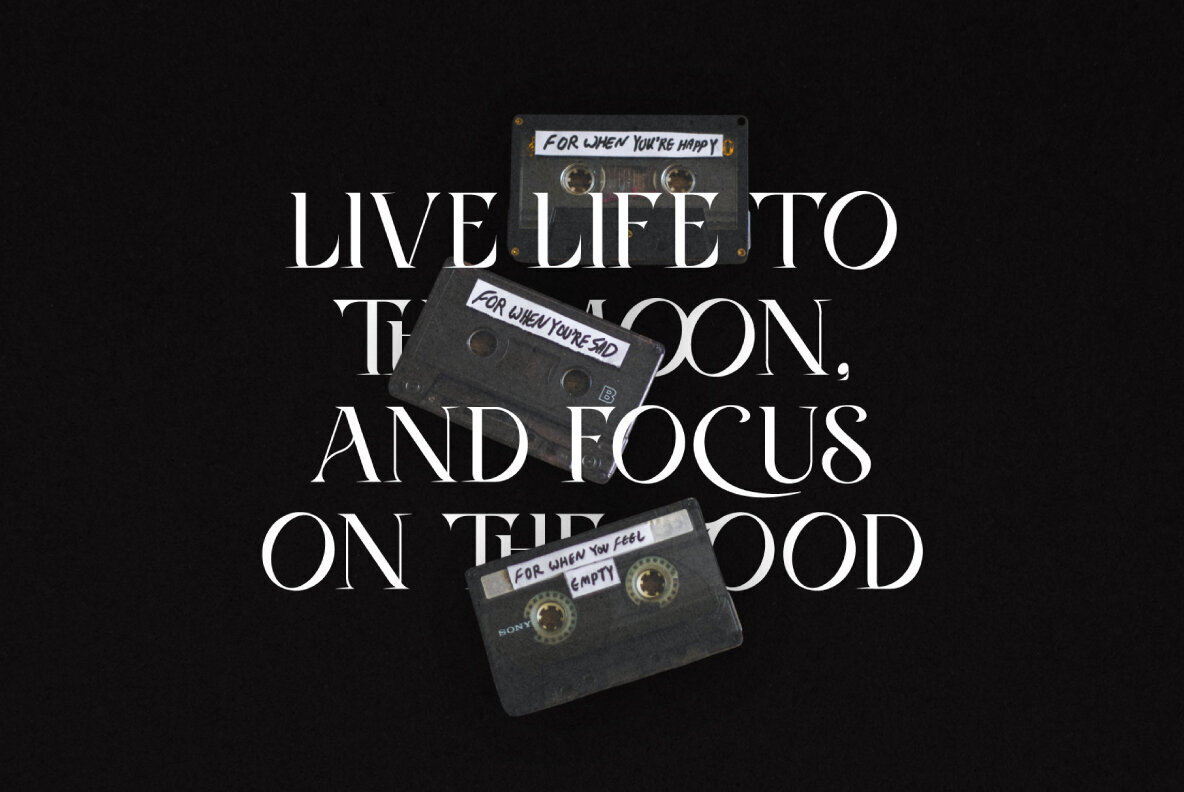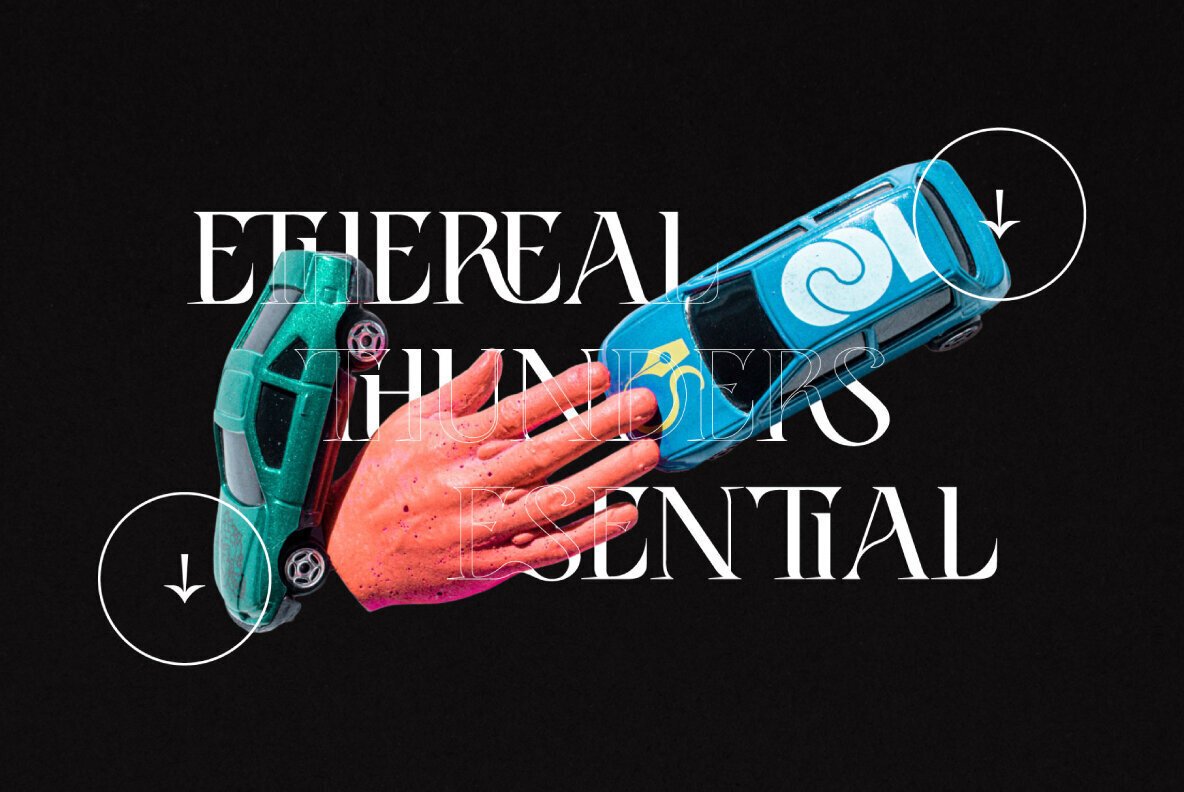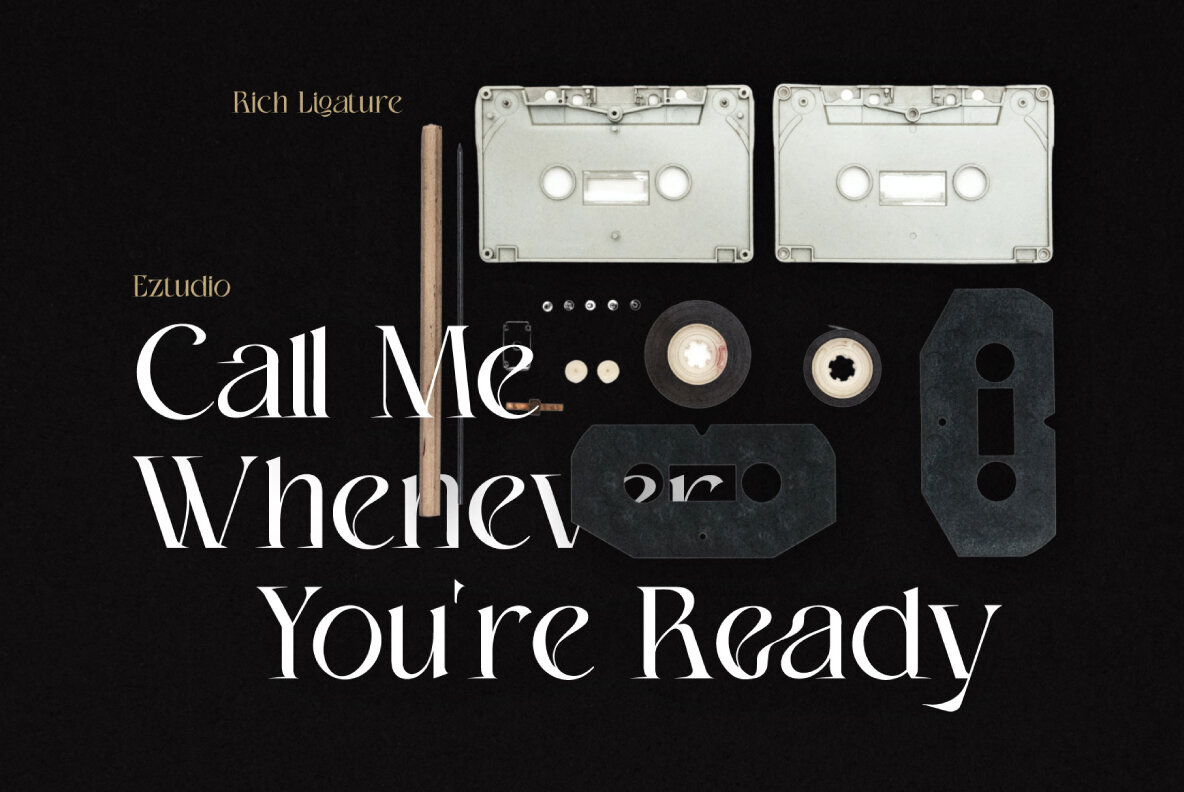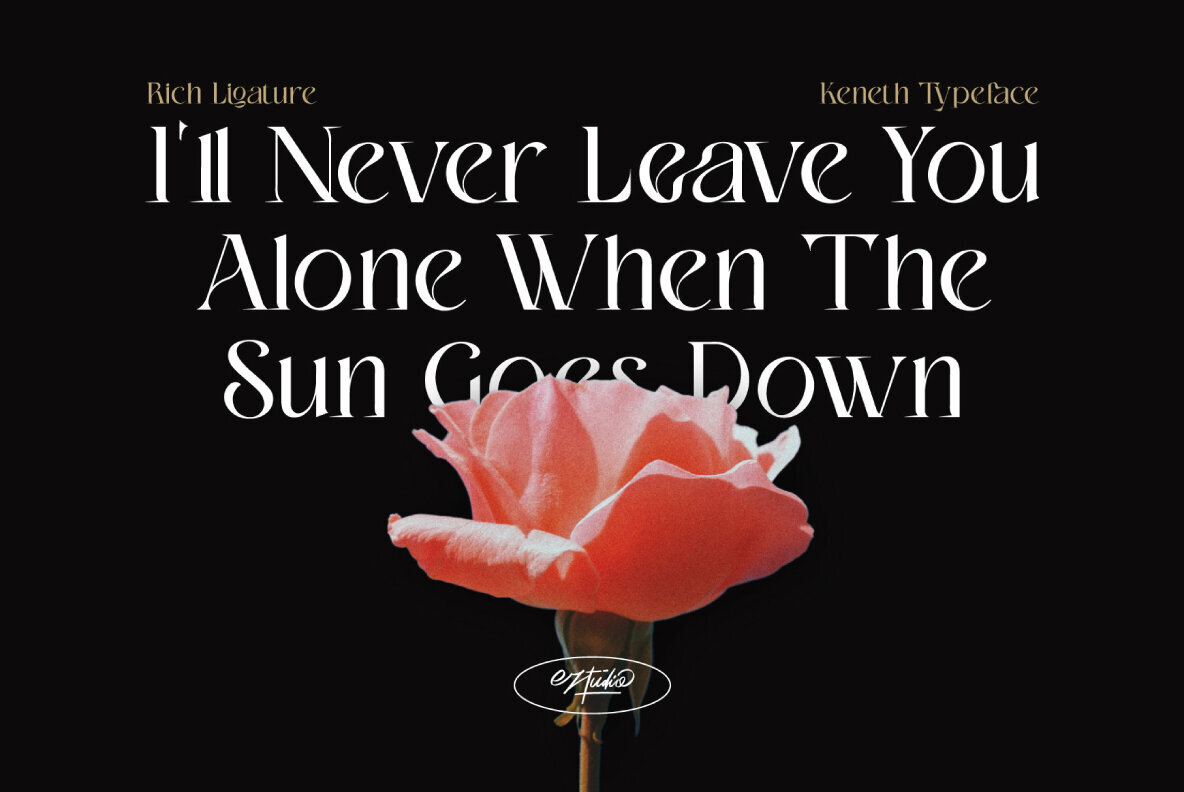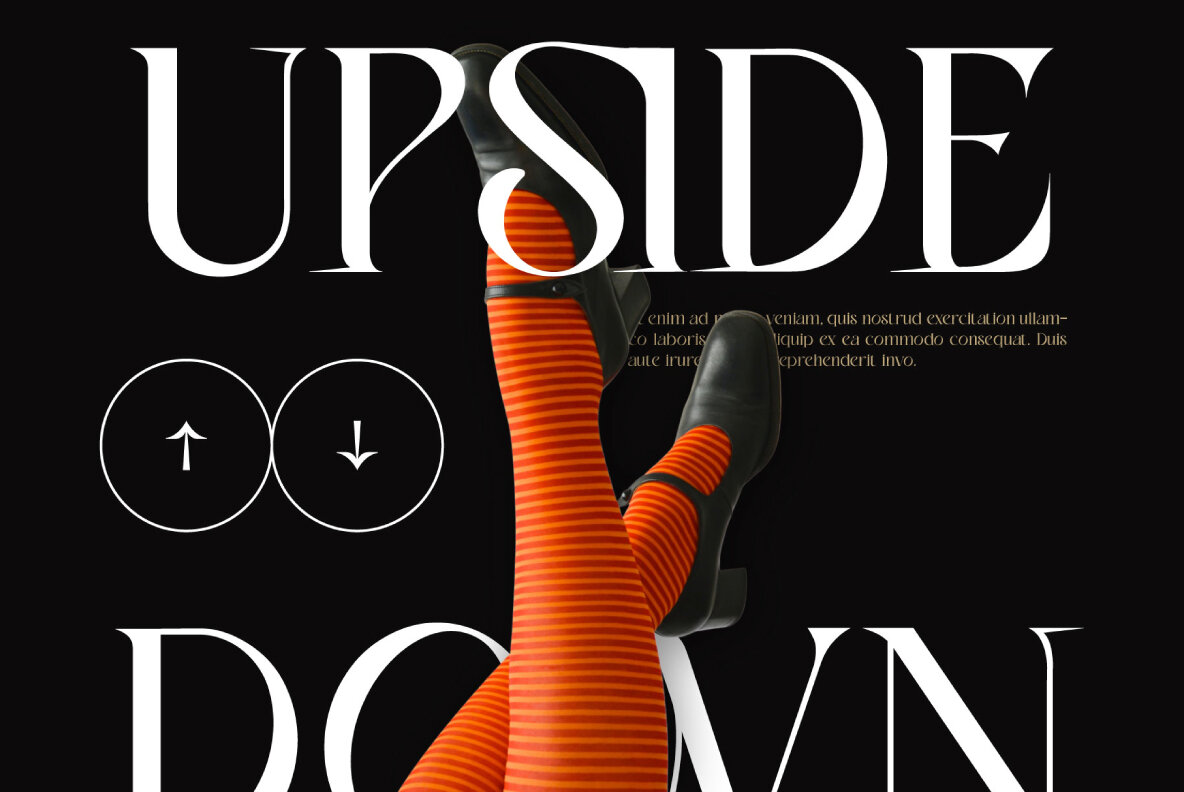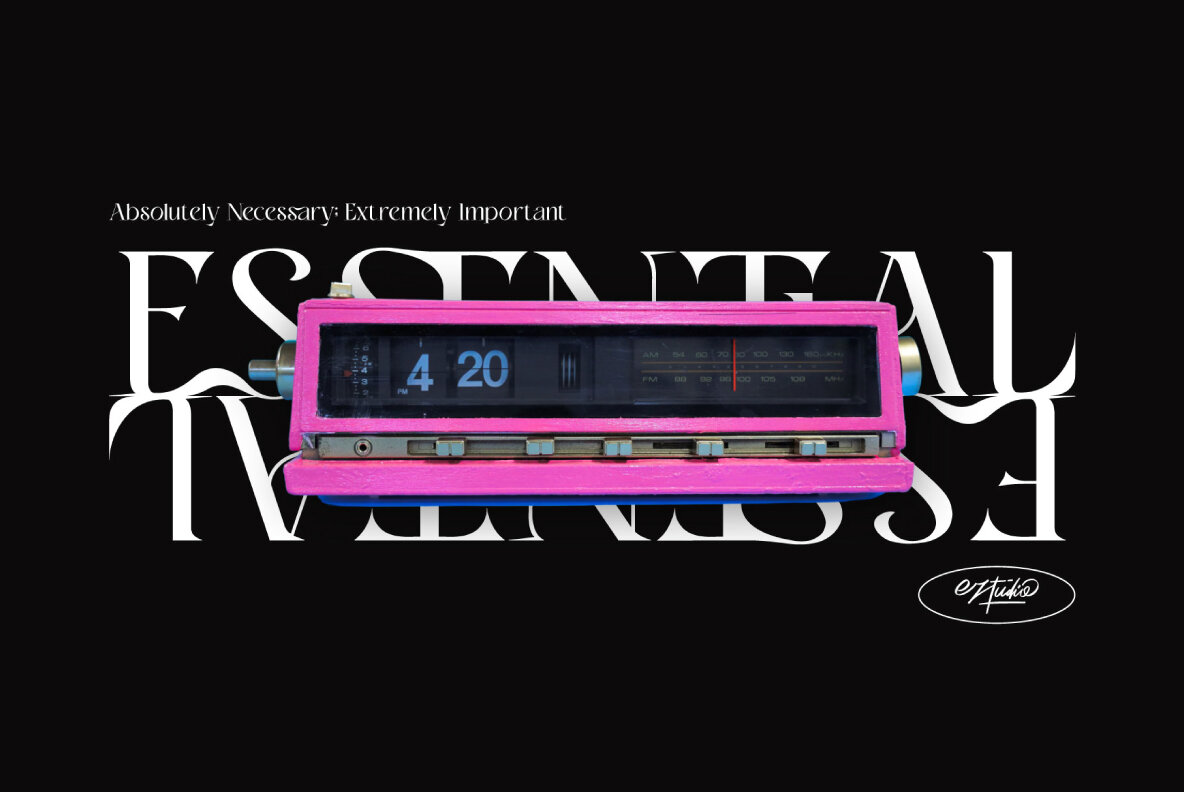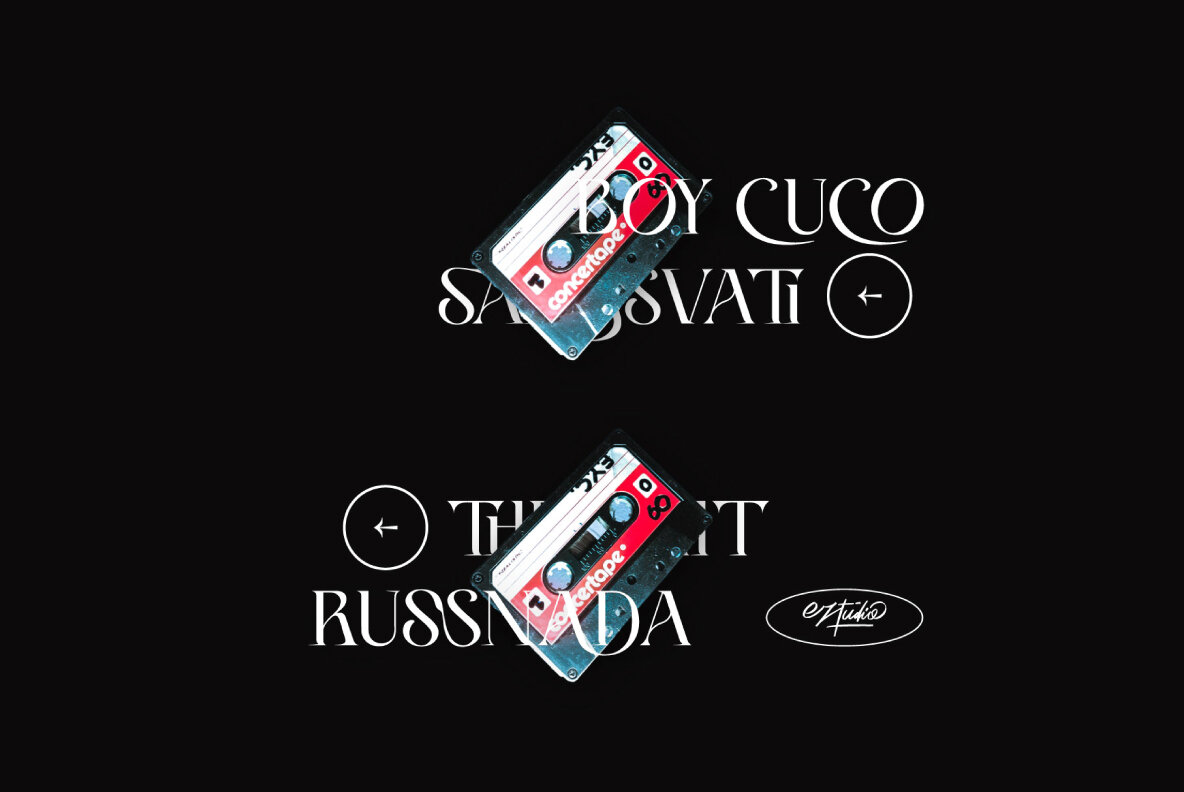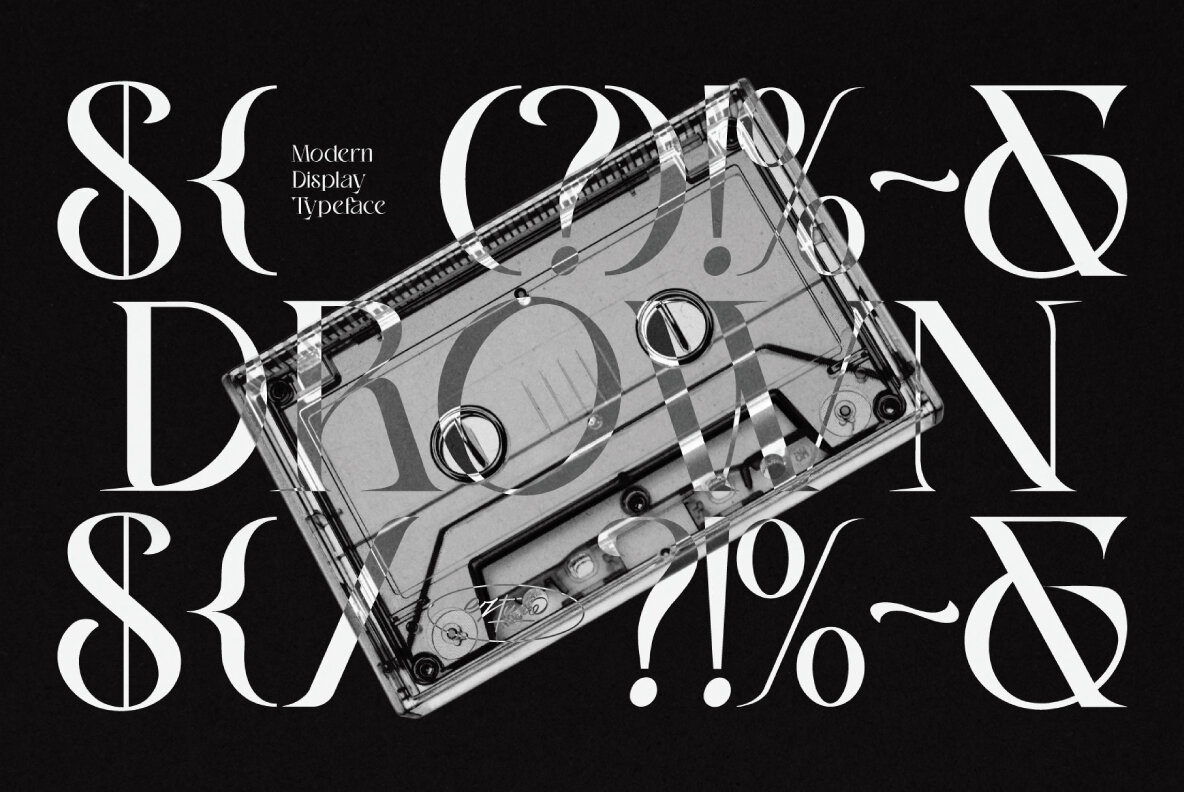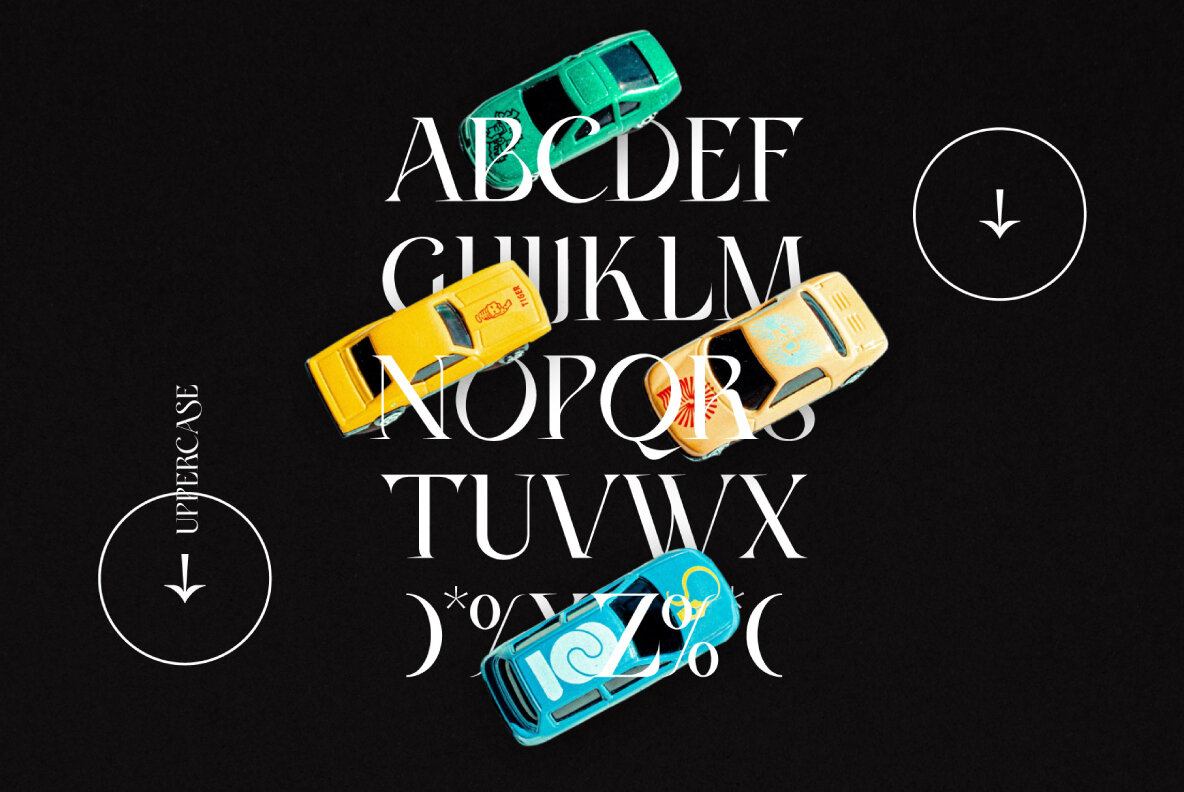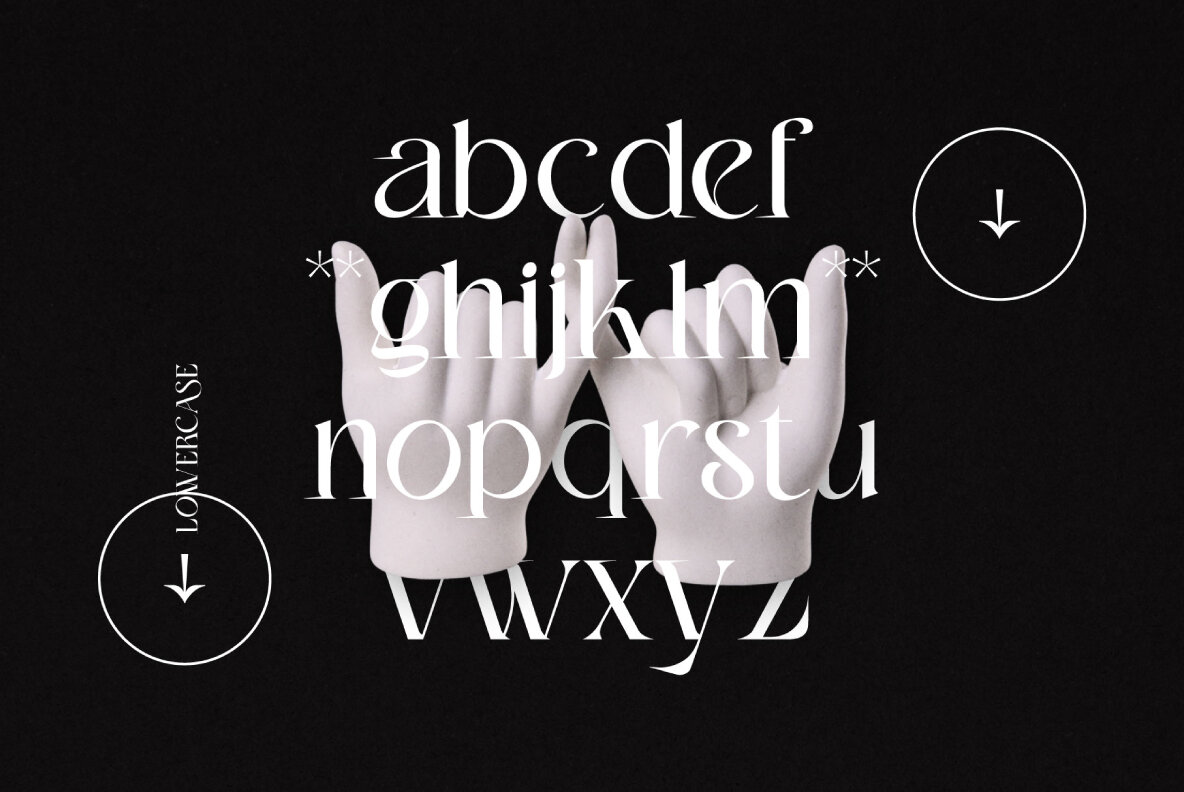
Keneth: A Chic Display Font for Modern Branding
Keneth by Eztudio offers a fashionable touch to any design project with its stylish and sophisticated appearance. This display font blends elegance and modernity, making it an ideal choice for a variety of applications, including logos, branding, and social media posts.
• Classy and modern aesthetic
• Perfect for logos and branding
• Versatile use in invitations and wedding designs
• Enhances social media presence